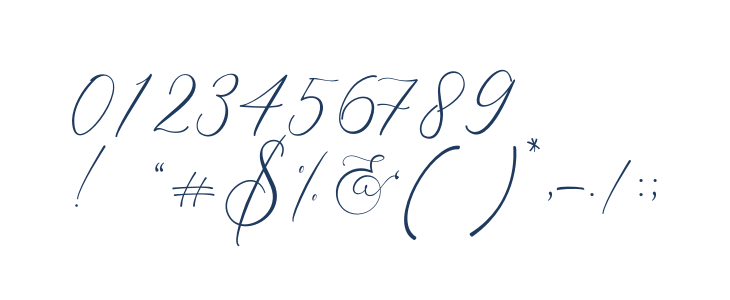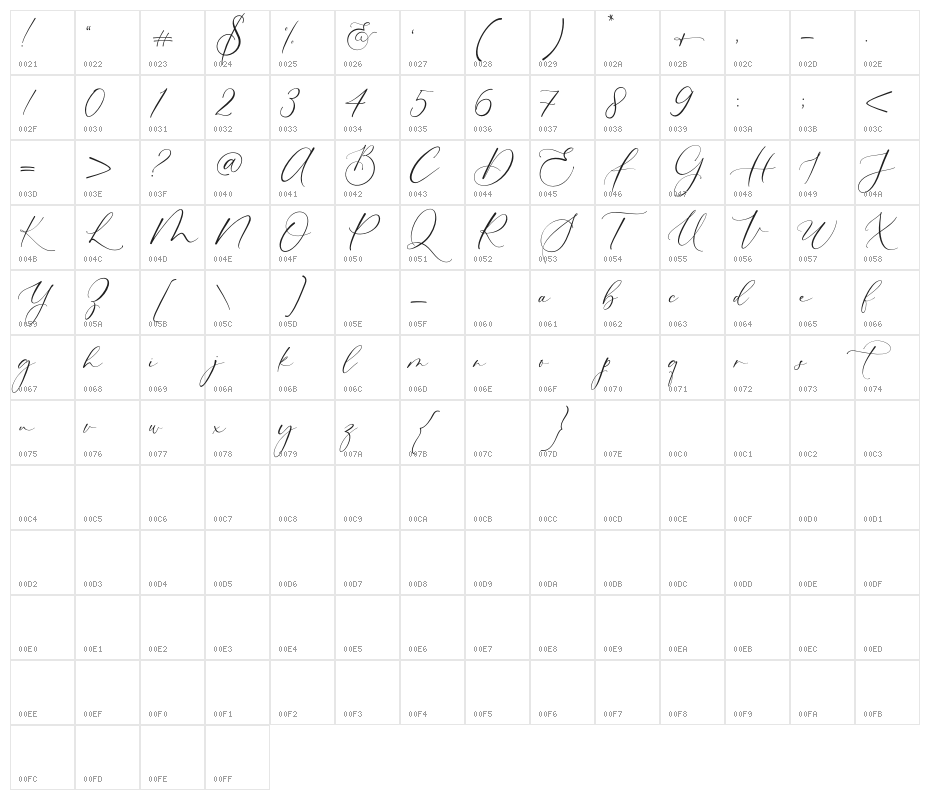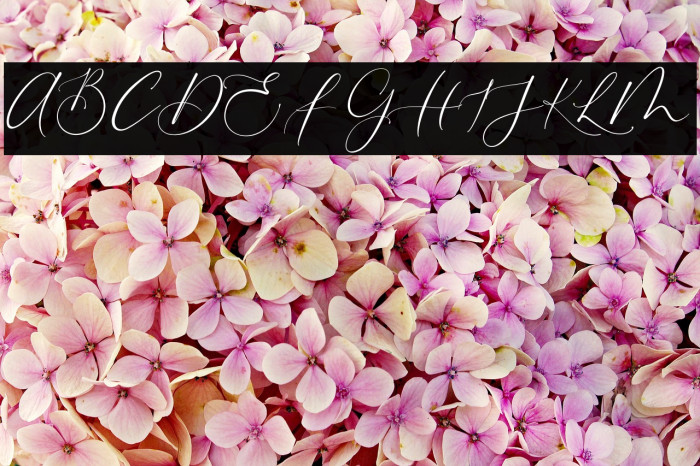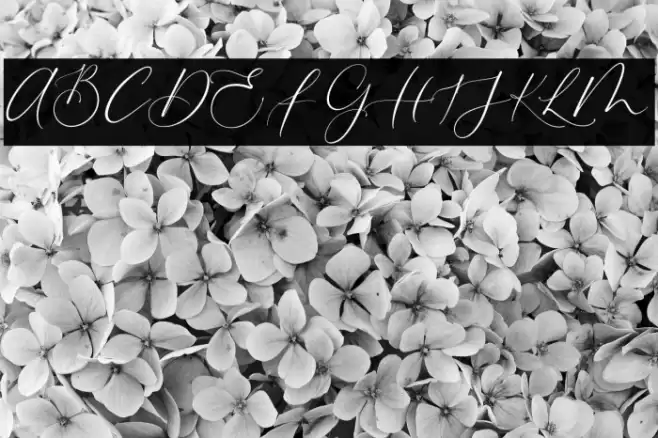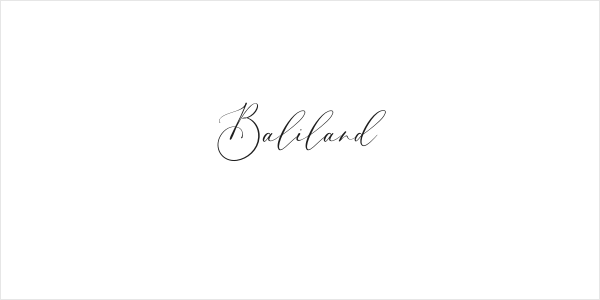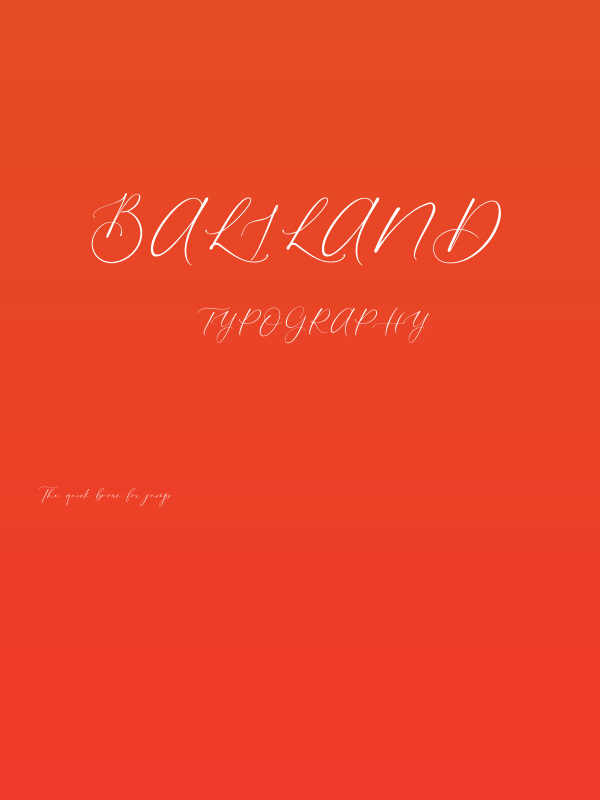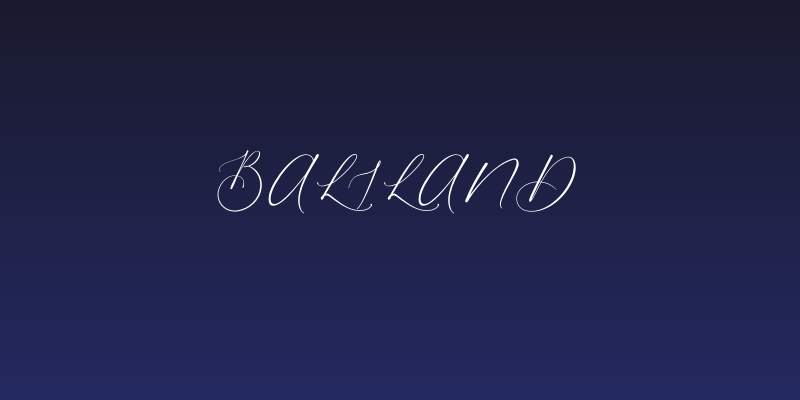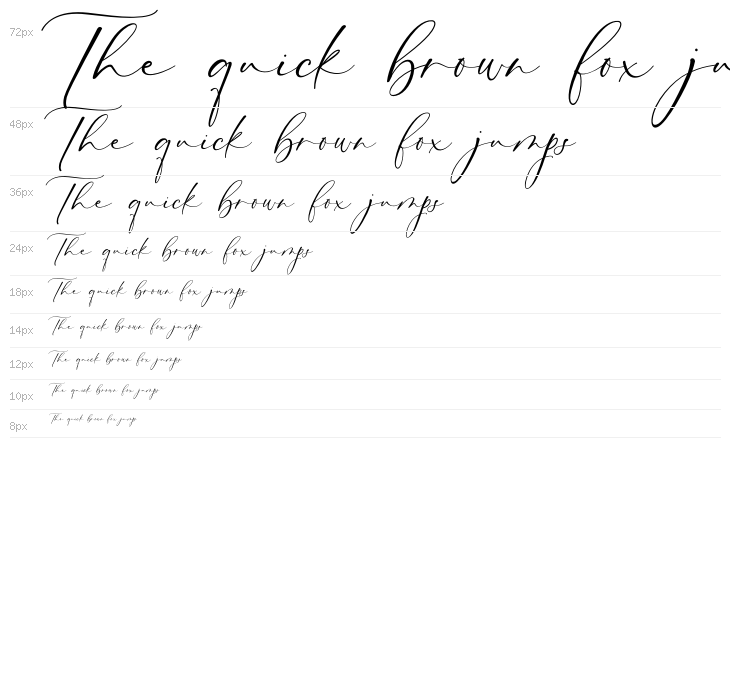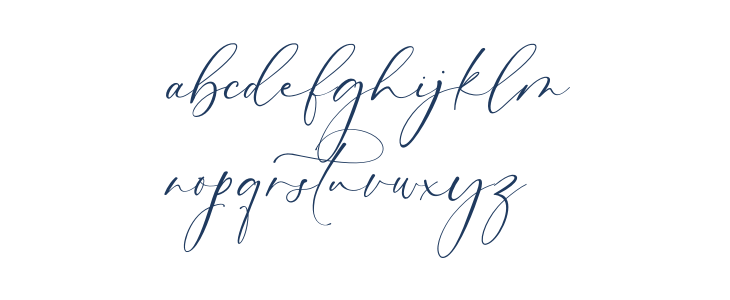
Baliland Font
Baliland Description
This font exudes elegance and sophistication with its fluid, cursive script style. The characters are intricately designed with sweeping curves and delicate loops, giving it a sense of movement and grace. The uppercase letters are particularly ornate, with flourishes that extend beyond the baseline, while the lowercase letters maintain a consistent flow. The numerals are equally stylish, matching the overall aesthetic with their graceful forms. Special characters are thoughtfully integrated, maintaining the font's cohesive look. This font is perfect for projects that require a touch of class and refinement.
| Overall Style | Elegant, Sophisticated |